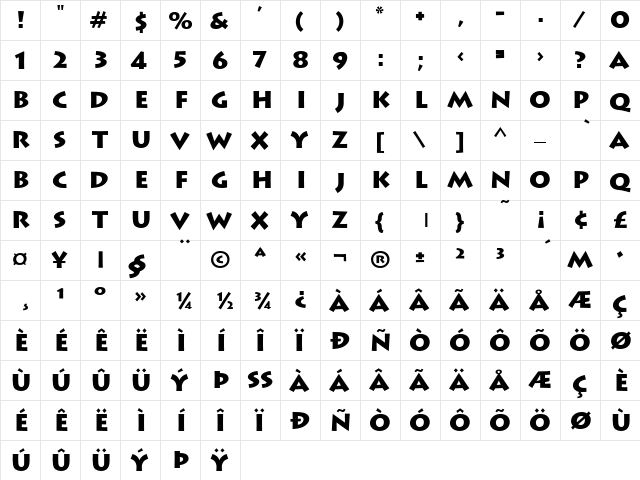
Lithograph Bold
Design Context for Lithograph Typeface
Lithograph takes a measured approach to typography — its balanced proportions and neutral character make it a reliable workhorse for both digital and print work. The heavy weight commands attention and anchors typographic hierarchies.